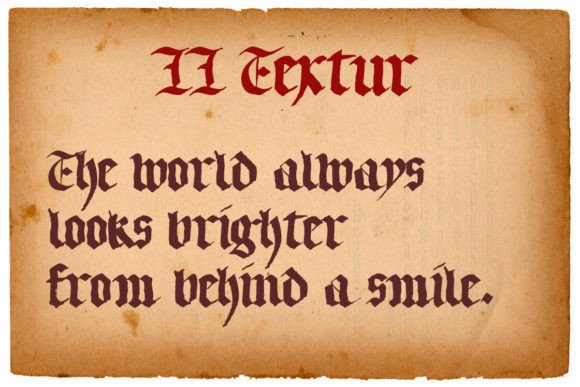
Are you ready to add a touch of vintage charm to your next project? Look no further than LL Textur Font, the perfect font for all your Halloween-themed designs.
With its intricate blackletter style, LL Textur Font will transport you back in time to a world of mystery and magic. This gorgeous font is perfect for evoking the feeling of old-world elegance, making it ideal for invitations, posters, and other promotional materials.
But LL Textur Font isn't just for Halloween. Its authentic and vintage touch can add a timeless appeal to any project, from logos and branding to packaging and web design.
Crafted by the renowned font designer Markus Schroppel, LL Textur Font is a true work of art. Its carefully crafted curves and flourishes will add a touch of sophistication and visual interest to your work.